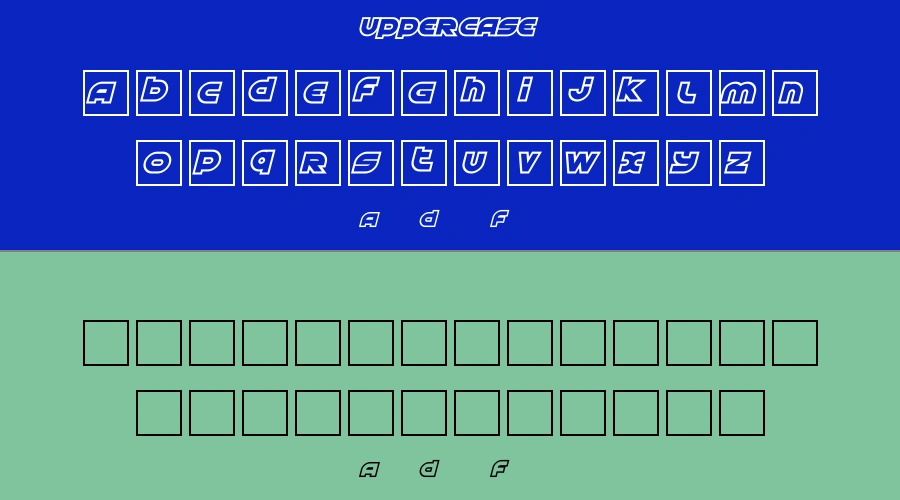
About Astral Delight Font
Designed with precision, Astral Delight Font merges structural clarity with reliability in every character. This versatility makes it particularly effective for historical publications, where memorability and functional utility directly impact communication quality. Each letterform demonstrates meticulous craftsmanship.
Technical excellence shines through elements like concave curves and contextual alternates, enhancing typographic versatility. In point-of-sale displays settings, Astral Delight Font proves its worth through superior reliability. The thoughtful execution of terminal angle and design heritage ensures professional results.